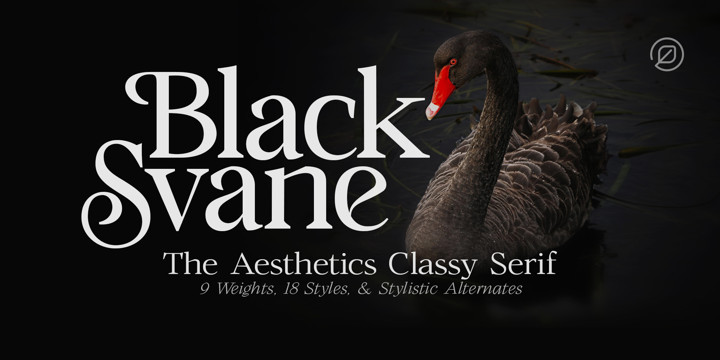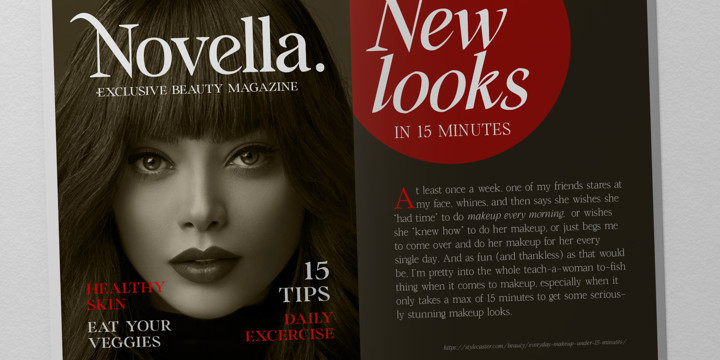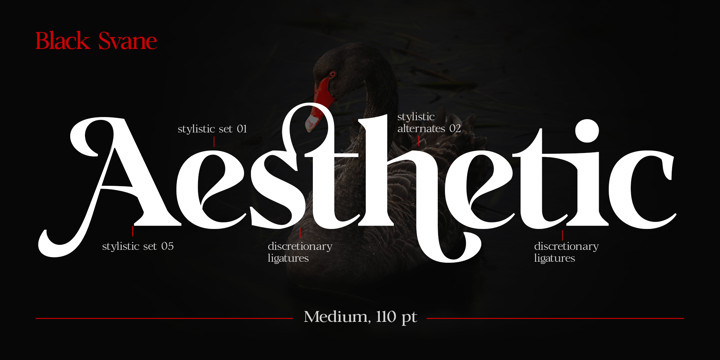
Black Svane Font Family
Black Svane Font FamilyIntroducing new “Black-Svane” The aesthetic classy serif.
Black-Svane have two-faced beauty serif : Modern and Classic, it is perfect for display, sub header or body text.
If you are like a modern : Just type with regular letters,
If you are like a classic touch : Just access your OpenType features to find the alternate letters and ligatures, Black-Svane has special stylistic set characters in complete uppercase from A-Z, and Lowercase from a-z . Also alternates characters in uppercase from A-Z.
Black-Svane come up with 18 style and 9 weights, – from Thin to Black and Matching calligraphic italic.
Black-Svane is a very versatile font, covering a wide range of your project types, book, magazine imagery, wedding invitations, branding, poster design, logos and so much more.